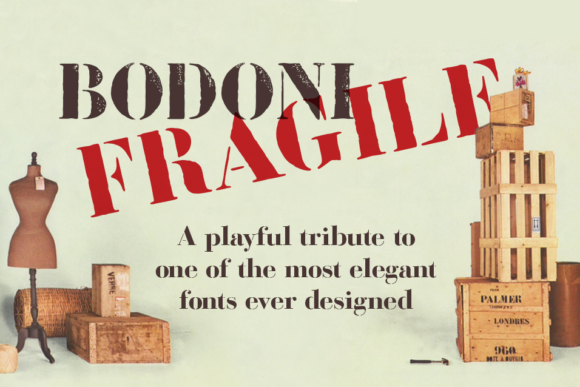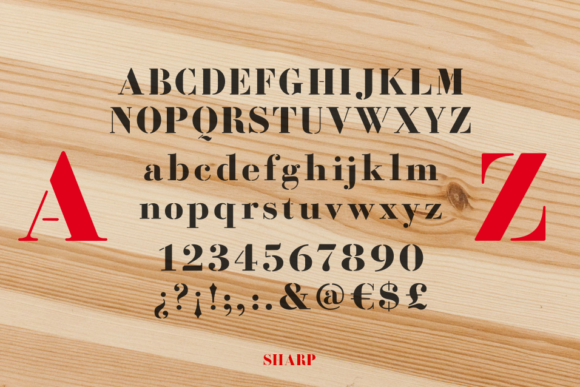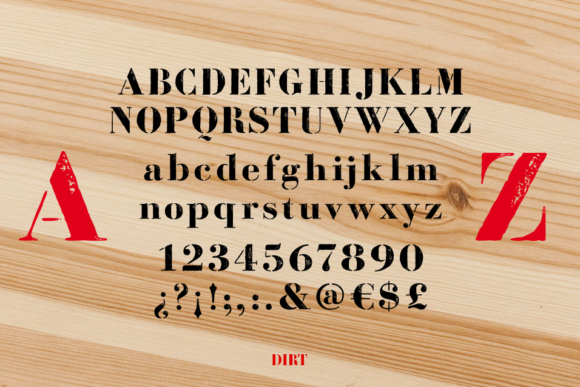
Bodoni Fragile Font
About the Bodoni Fragile Font
Welcome to the world of Bodoni Fragile Font, a typeface that will inspire your next great project. Bodoni Fragile feels equally charming and elegant. Whether it’s for web, print, moving images or anything else this serif font will look spectacular.
Its delicate serifs and high contrast make Bodoni Fragile ideal for headlines, short text blocks, and branding elements where elegance and sophistication are key. It shines in projects like luxury product packaging, high-end invitations, or short-form editorial design. However, its low x-height and thin strokes render it unsuitable for body text or lengthy paragraphs; readability suffers at smaller sizes.
Consider pairing Bodoni Fragile with a clean sans-serif like Helvetica Neue for a modern contrast, or a warmer, slightly rounded sans-serif like Lato for a more approachable feel. A playful script font could also complement it in certain applications, providing a touch of handwritten charm.
The overall personality of Bodoni Fragile is refined and elegant, yet with a subtle fragility that adds character. It is best suited for brands that project luxury, sophistication, and a touch of vulnerability.
Bodoni Fragile Font Usage Examples
Bodoni Fragile Font Example